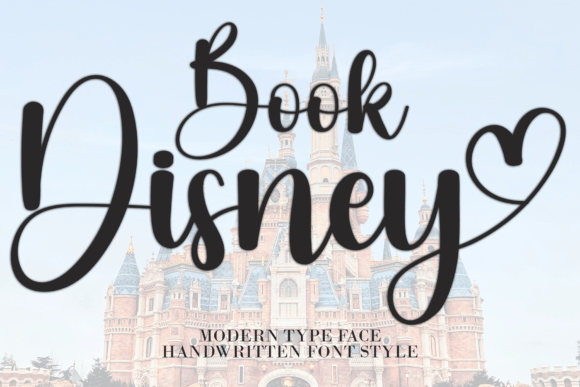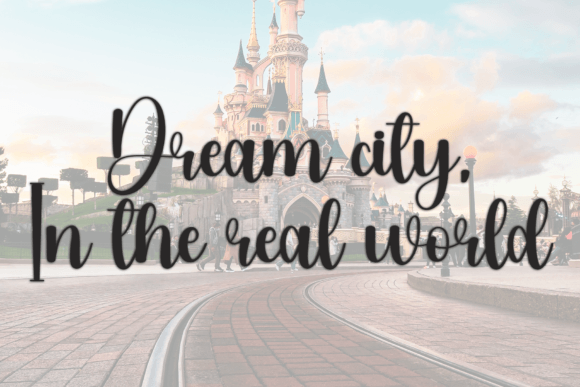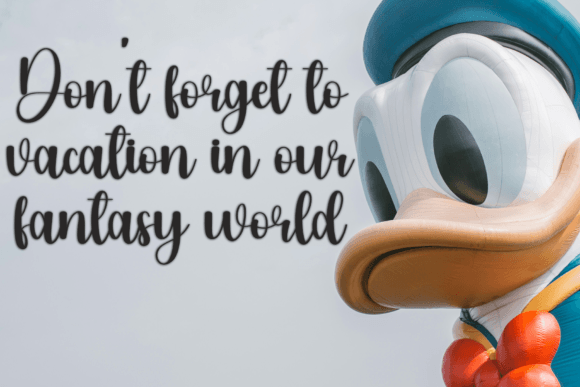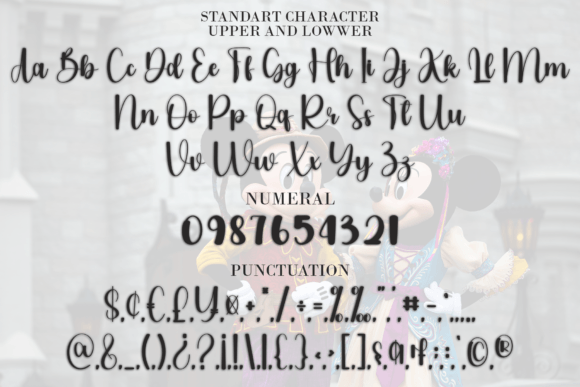
Book Disney Font
About the Book Disney Font
The Book Disney Font is here to transform your projects with its distinctive character and style. Book Disney is a sweet and friendly handwritten font. Its natural and unique style makes it incredibly fitting to a large pool of designs. The only limit is your imagination.
Book Disney’s friendly, handwritten style excels in projects needing a touch of whimsical charm. It works beautifully for children’s books, branding for playful businesses (e.g., bakeries, toy stores), and short, impactful headlines. Avoid using it for body text or lengthy content; its informal nature makes extended reading difficult.
Pairing Book Disney with a clean sans-serif like Open Sans for body text creates a strong visual hierarchy. For a more sophisticated feel, consider a classic serif such as Garamond. Alternatively, a geometric sans-serif like Montserrat can provide a modern contrast, balancing the font’s handcrafted charm.
The overall personality is undeniably cheerful and approachable, making it ideal for brands targeting a younger demographic or conveying a sense of lightheartedness and fun.
Book Disney Font Usage Examples
Book Disney Font Example